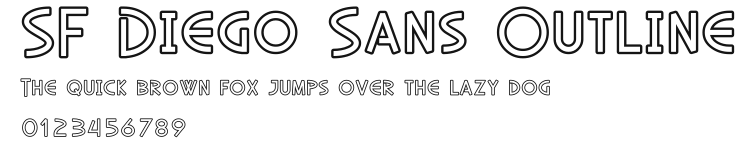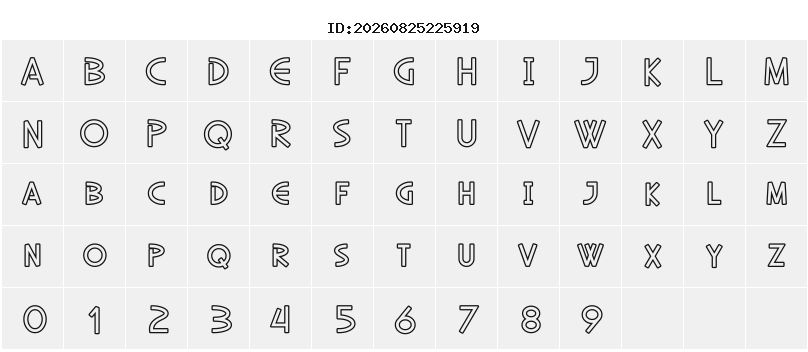
SF Diego Sans Outline Preview
• Font Name: SF Diego Sans Outline
• Font ID: ShyFontsTypeFoundry: SF Diego Sans Outline: 2001
• Full Font Name: SF Diego Sans Outline
• PostScript Name: SFDiegoSansOutline
• Character Count: 196
• Designer: ShyFonts Type Foundry
• Description: SF Diego Sans Outline is a trademark of the ShyFonts Type Foundry.
About SF Diego Sans Outline.ttf
SF Diego Sans Outline.ttf is a modern, elegant sans-serif font designed for ultimate readability and visual harmony. Perfect for branding, headlines, web design, and print materials.